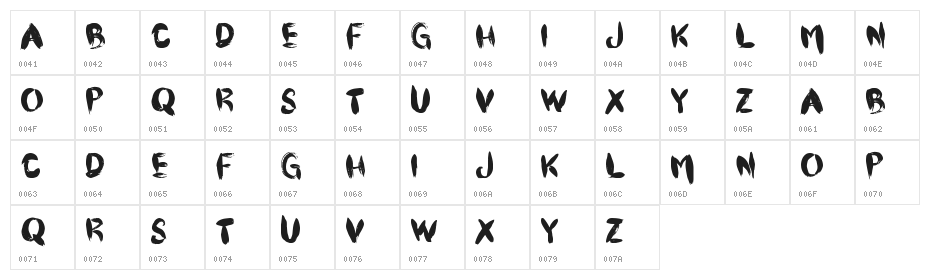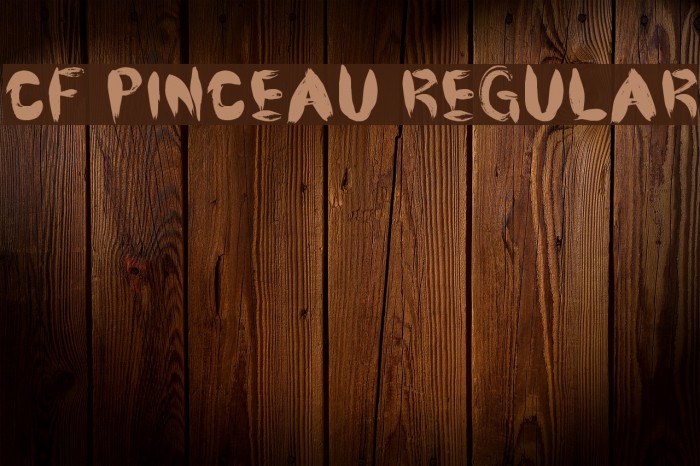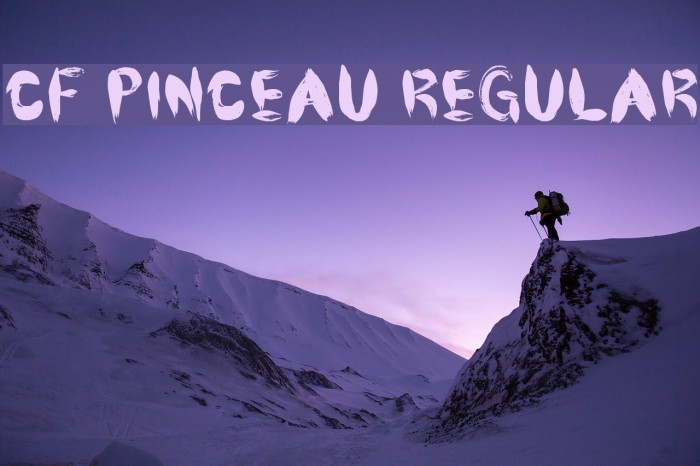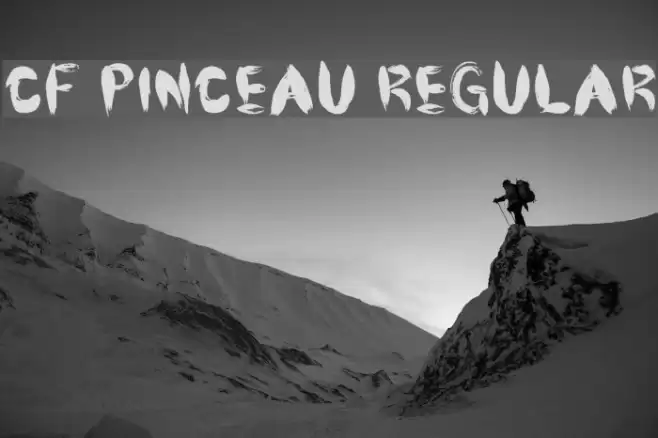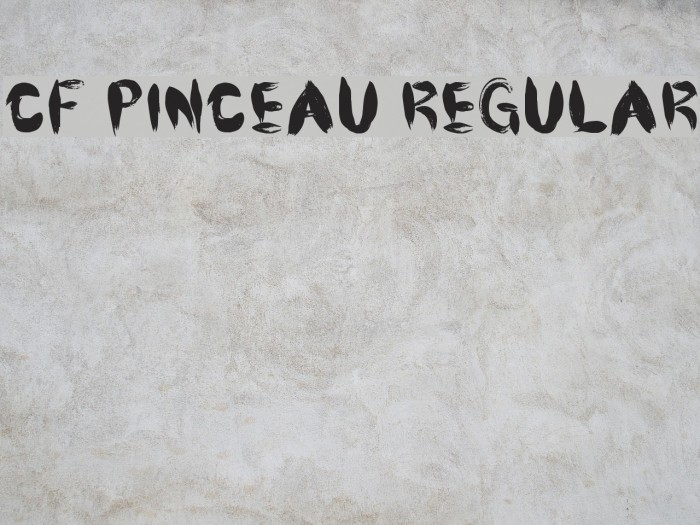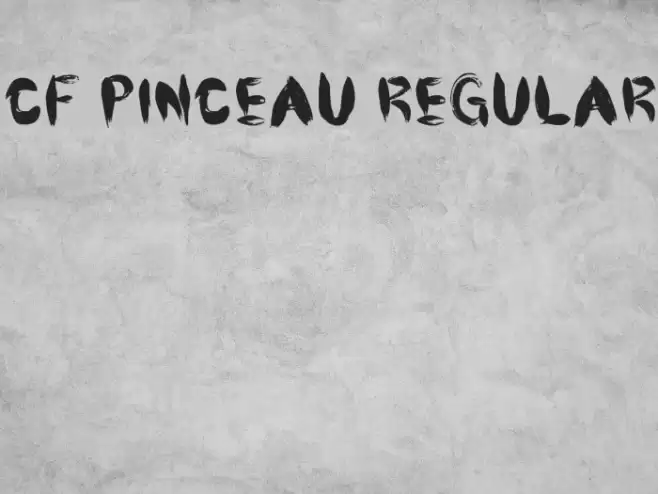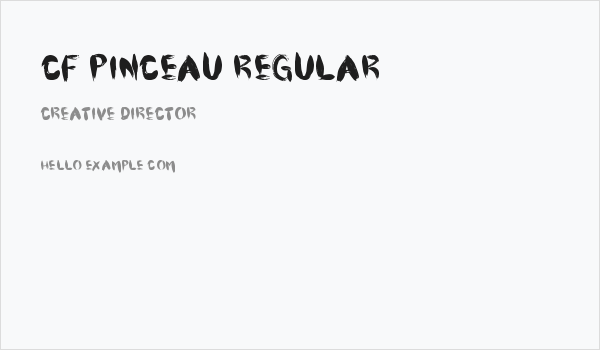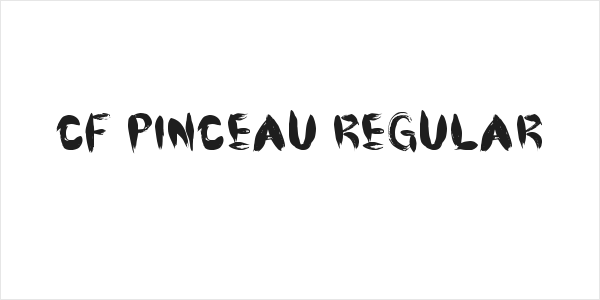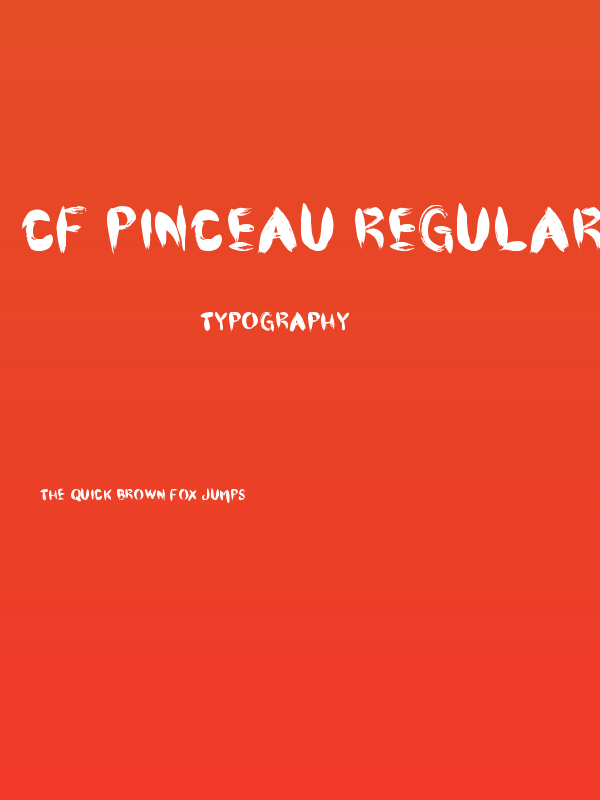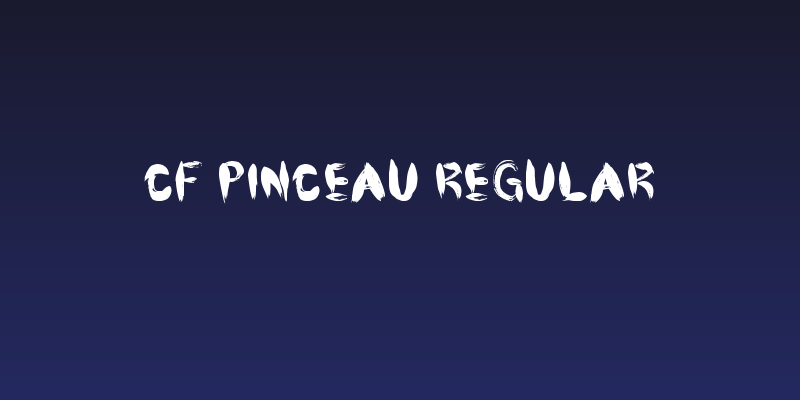
CF Pinceau Regular Font
CF Pinceau Regular Description
This font features a bold, expressive brush style that mimics the dynamic strokes of a paintbrush. Each character is crafted with a sense of movement and energy, showcasing irregular edges and varying thicknesses that add a hand-painted feel. The uppercase letters are particularly striking, with dramatic curves and swashes that give the font a lively and artistic appearance. The overall design is both bold and playful, making it ideal for projects that require a touch of creativity and flair. Its unique style is perfect for capturing attention and conveying a sense of artistic expression.
| Overall Style | Artistic, Expressive |
| Proposed Projects | Ideal for artistic posters, creative branding, event invitations, and expressive headlines. |